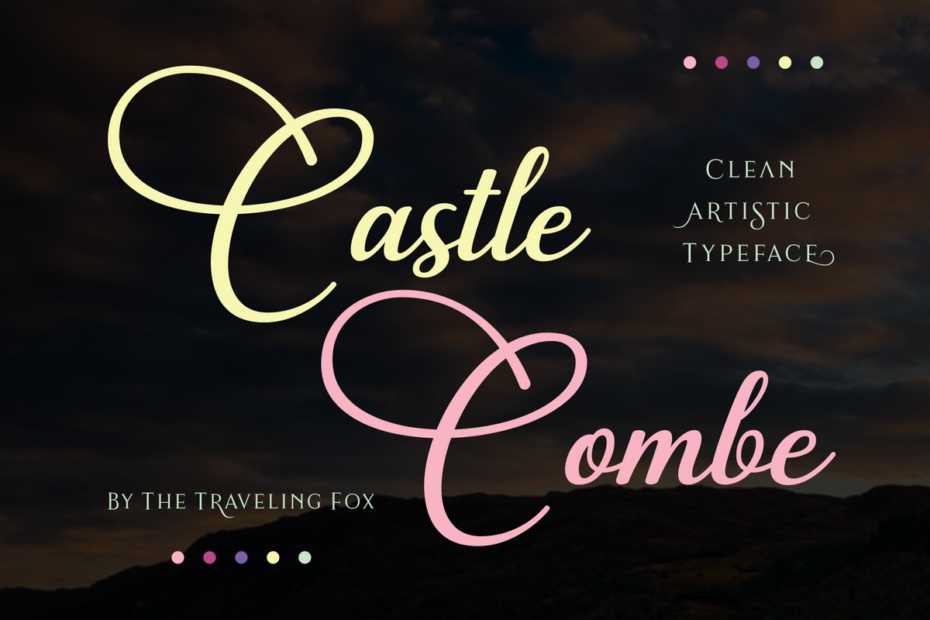
The Perfect Touch of Elegance: Castle Combe Font
Have you ever found yourself stuck in a design rut, searching for that one element that will elevate your project from good to great? I’m sure we’ve all been there, scrolling through font libraries, hoping to stumble upon the perfect combination of style and functionality. And then, it hits you – the perfect font that brings your design to life.
Meet the Castle Combe Font, a stunning script font designed to add a touch of elegance to your designs. With gorgeous capitals, stunning swashes, and clear, easy-to-read lowercase characters, this font is a versatile gem that will breathe new life into your projects. Whether you’re a graphic designer, writer, or artist, the Castle Combe Font is a valuable addition to your toolkit, allowing you to add a decorative touch with ease.
Castle Combe Font Key Features
- Unique Characteristics: Castle Combe Font is a modern script font with a unique blend of elegance and sophistication, featuring flowing connections and subtle flourishes.
- Font Weight and Style: Castle Combe Font comes in multiple weights, including Light, Regular, Medium, Bold, and Black, as well as various styles, such as Italic and Script.
Castle Combe Font Review
As a designer, I was excited to dive into the Castle Combe Font, and here’s my honest review.
- Unique character set: The font features a beautiful, hand-drawn look that’s perfect for creating a vintage or antique feel.
- High-resolution glyphs: The font includes high-quality glyphs, making it ideal for large-scale prints or digital displays.
- Customization options: The font comes with a range of customization options, allowing users to adjust the font’s style to suit their needs.
- Limited language support: The font may not support all languages, which could be a concern for users who need to typeset text in multiple languages.
- No bold or italic weights: The font only comes in a single weight, which may limit its versatility in certain design applications.
Overall, I’d say the Castle Combe Font is a solid choice for designers looking for a unique, high-quality font. While it may have some limitations, its strengths make it a great addition to any design project.
Tips for Getting the Most Out of the Castle Combe Font
For best results, pair the Castle Combe Font with elegant and classic designs. Use it for titles, headings, and body text to create a cohesive and sophisticated look.
The Castle Combe Font is ideal for:
- Formal event materials
- Luxury brand logos and packaging
- High-end marketing materials
Alternatives to Castle Combe Font
Playfair Display is a high-end, elegant serif font ideal for luxury brands, fashion, and high-end products. It has a classic feel with intricate details and ornate flourishes. Use it for titles, headings, and other prominent text elements where you want to convey sophistication and luxury.
Compared to Castle Combe Font, Playfair Display is more ornate and luxurious, making it better suited for high-end brands and applications. Castle Combe Font is more versatile and suitable for a wider range of applications, including body text and everyday use.